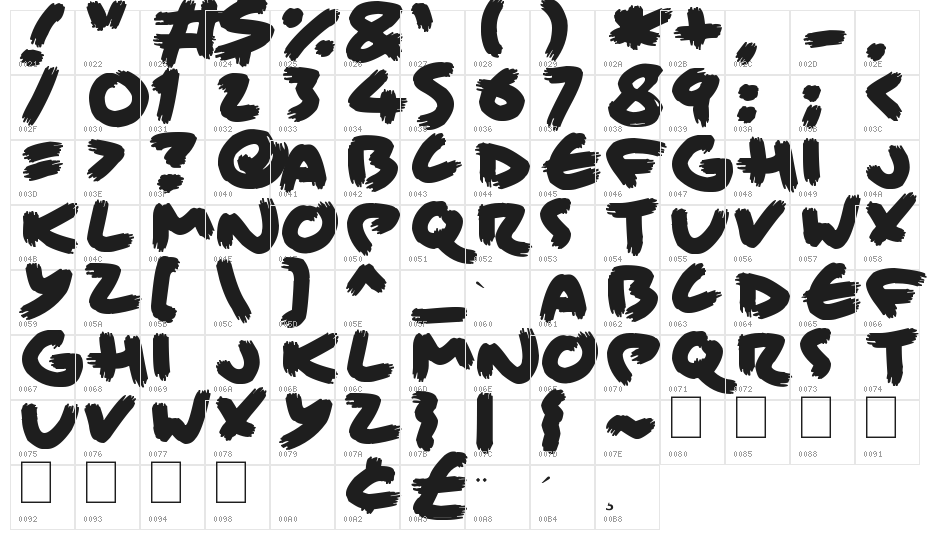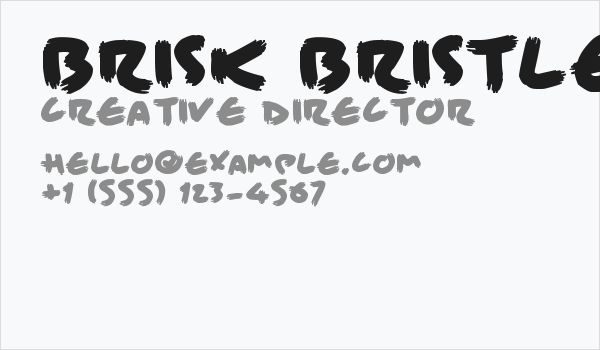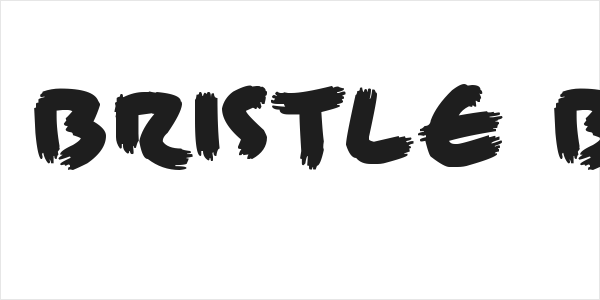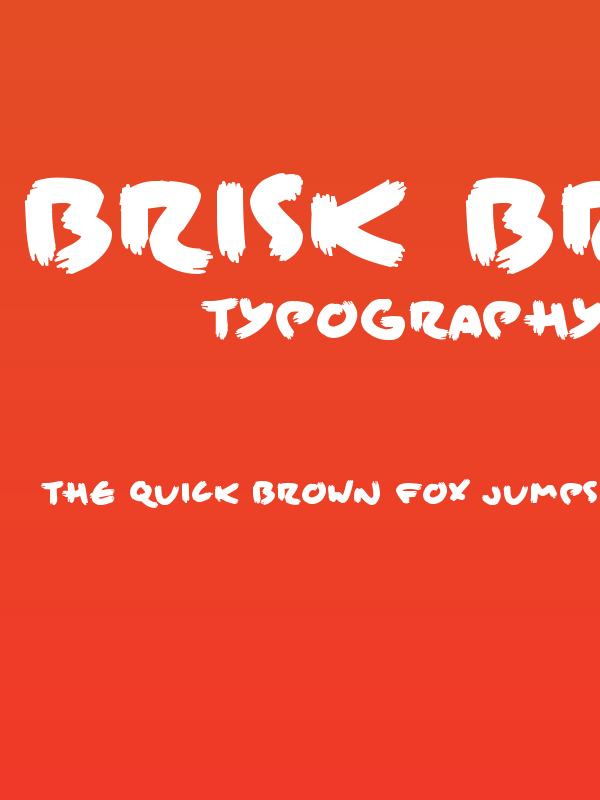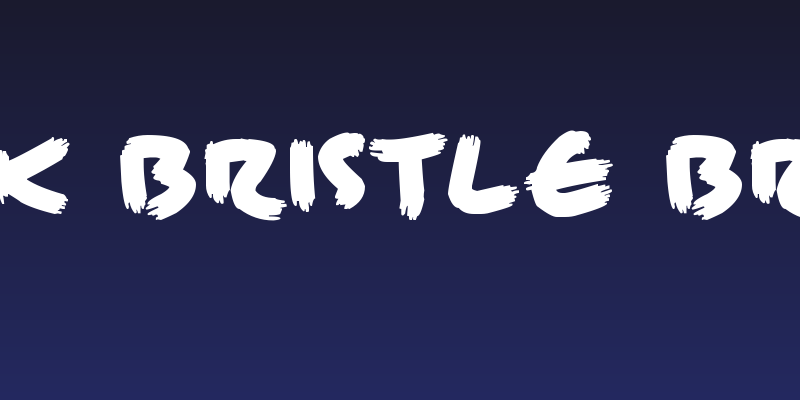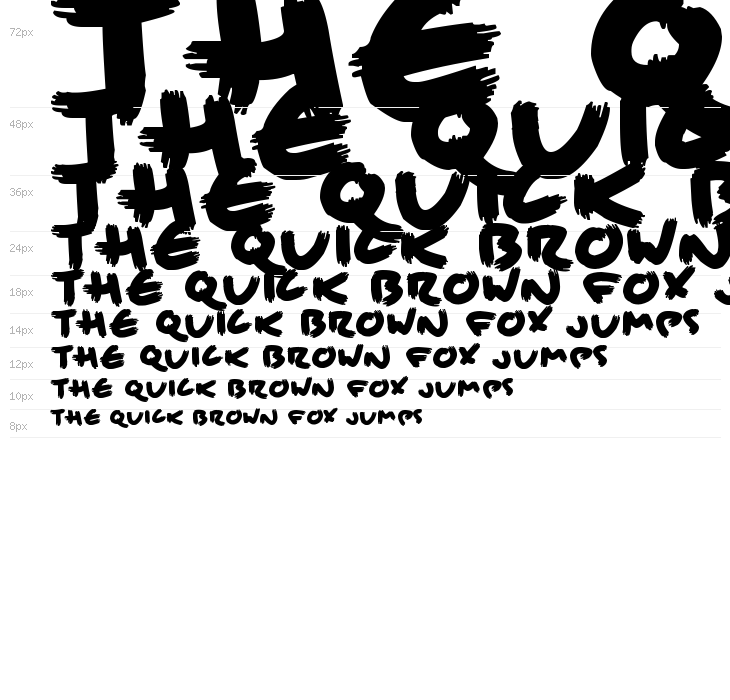
Brisk Bristle Brush Font
Brisk Bristle Brush Description
This font features a bold and expressive brush style, characterized by its dynamic and energetic strokes. The letters are crafted with a rough, textured appearance, mimicking the effect of a dry brush on canvas. Each character has a unique flair, with varying thicknesses and angles that add a sense of movement and spontaneity. The uppercase and lowercase letters maintain a consistent style, while the numerals and special characters complement the overall aesthetic. This font exudes a sense of creativity and artistic flair, making it ideal for projects that require a bold and impactful visual statement.